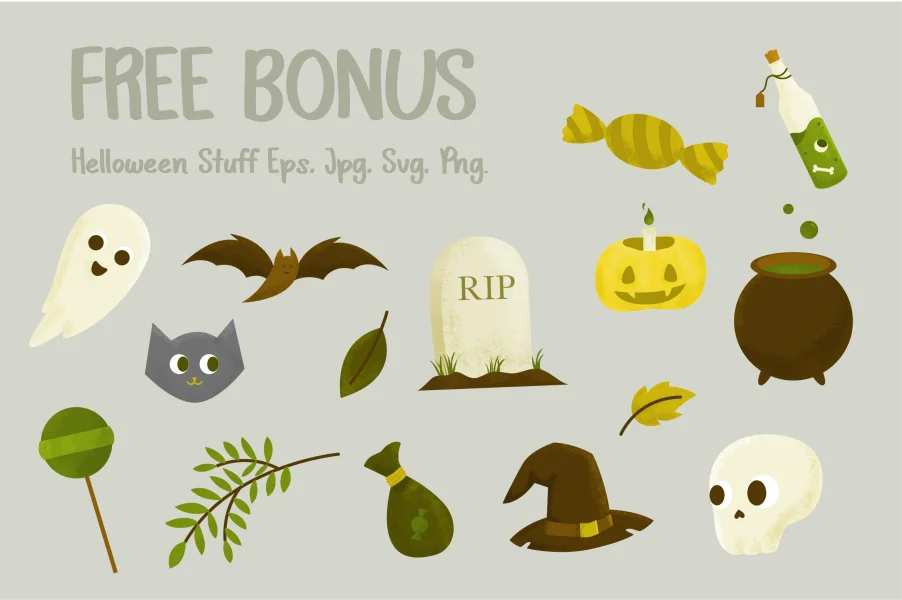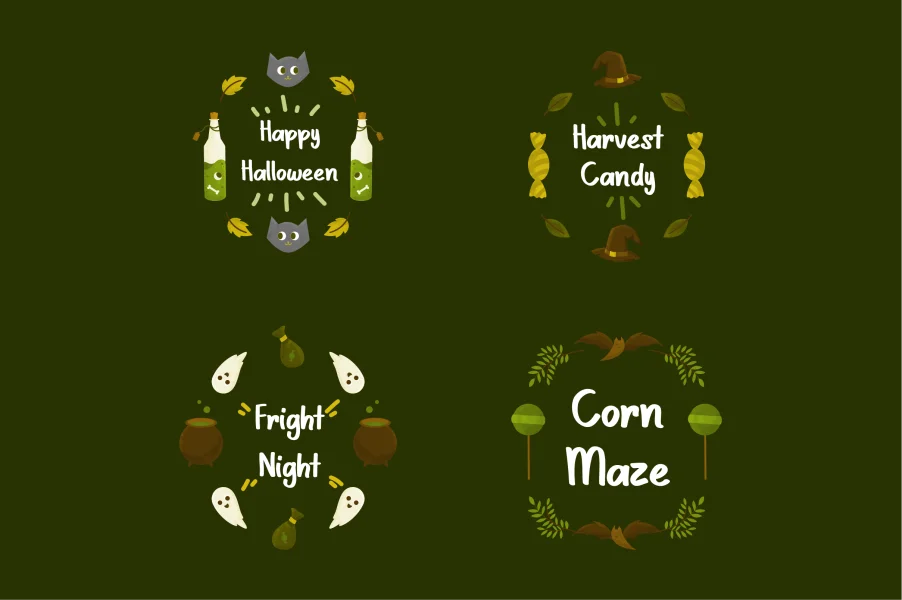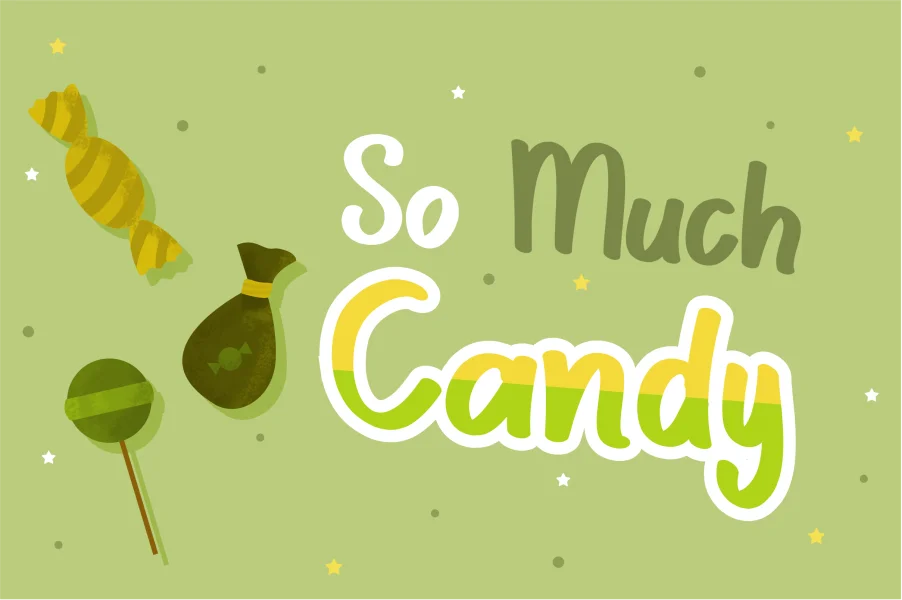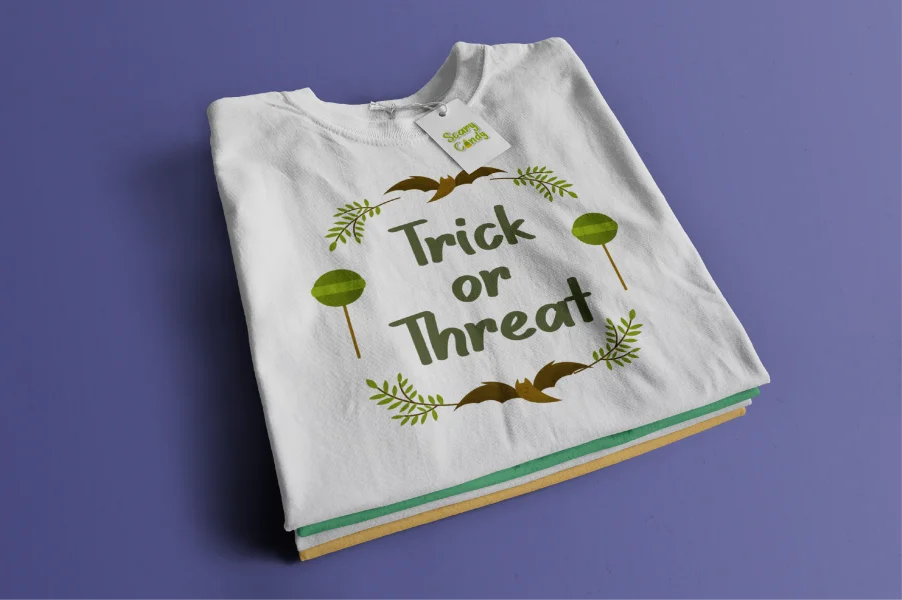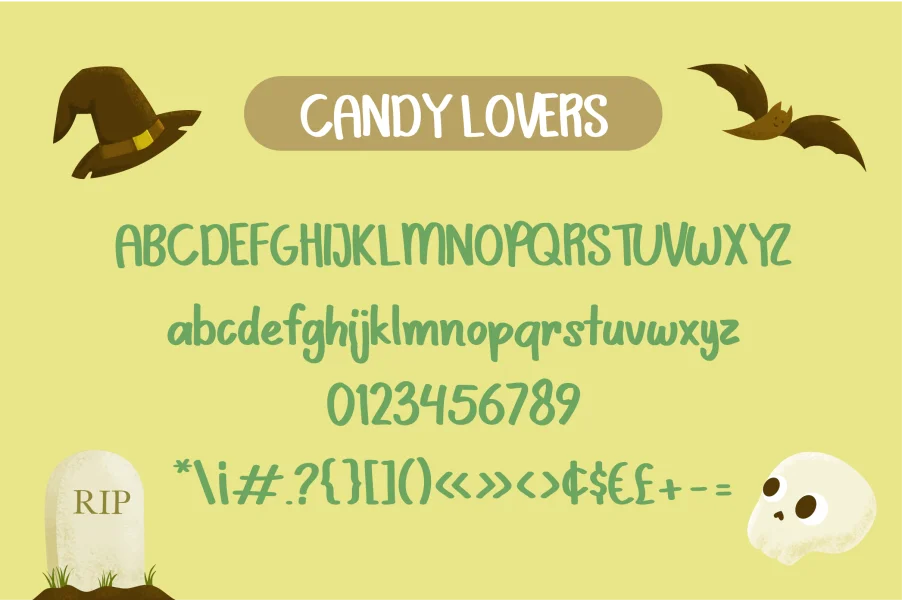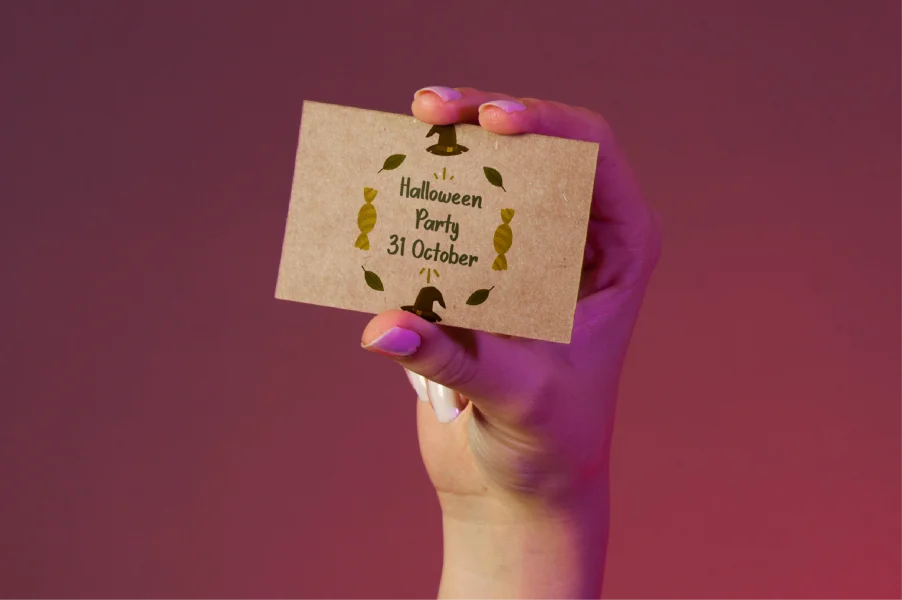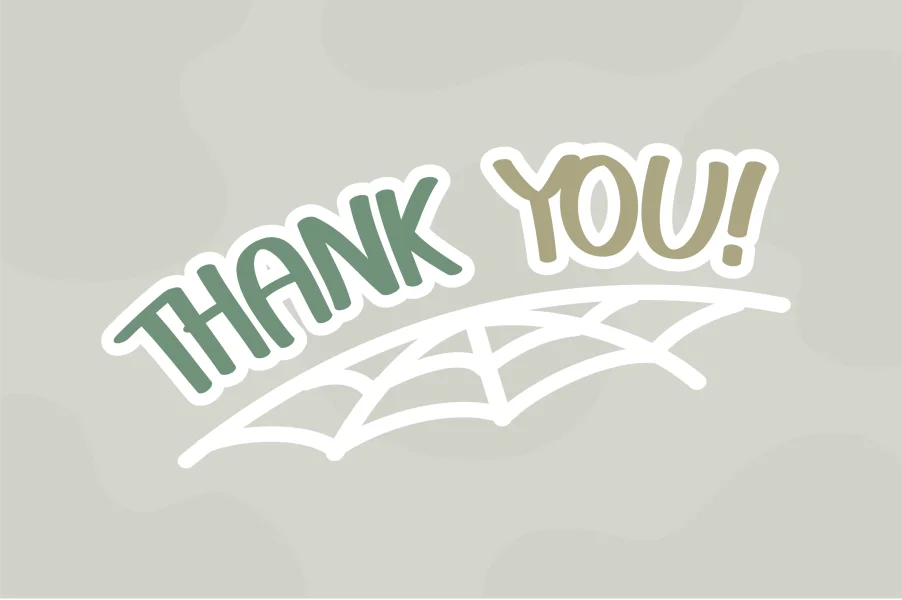
Scary Candy is a cute and spooky Halloween font. Its natural and unique style makes it incredibly fitting to a large pool of designs with illustration and lettering bundling inside. Scary Candy is perfect for kid greeting cards, Print t-shirt, fashion artworks or just play around. Halloween and all festivals are perfect for using this product!